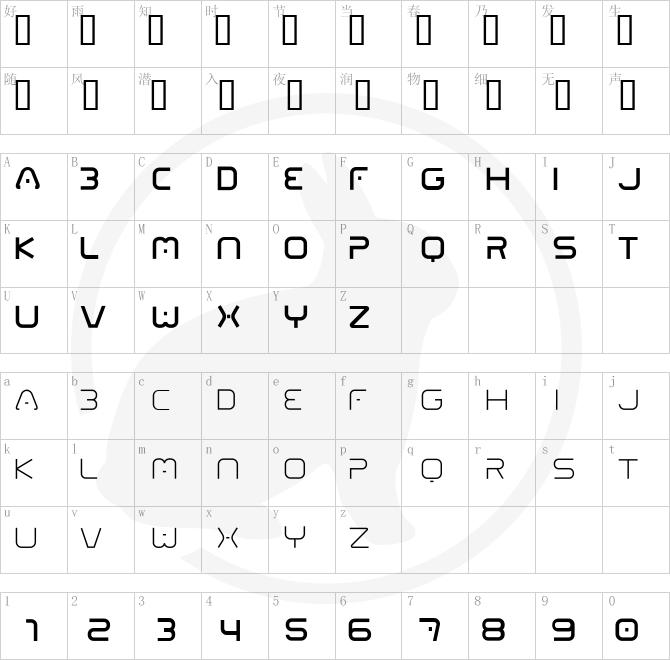
• Font Name:01 Digitall
01-Digitall.ttf is a very beautiful artistic font, 01-Digitall.ttf is widely used in the design and printing of various books and pictures,01-Digitall.ttf has a strong visual impact,01-Digitall.ttf is a commonly used font in newspapers, magazines and books, and is used in posters, e-commerce Poster design, store design, logo design, font design and other fields.01-Digitall.